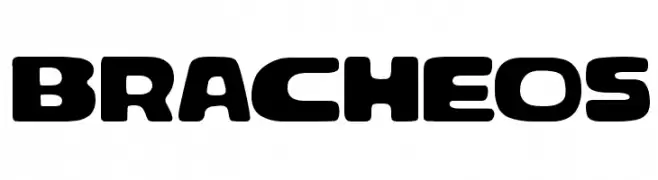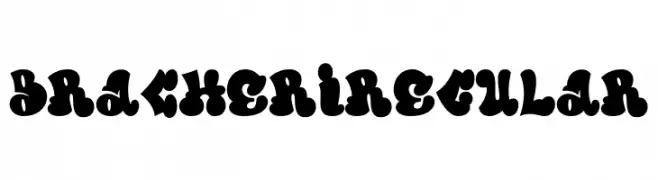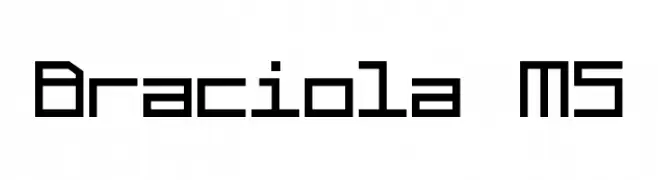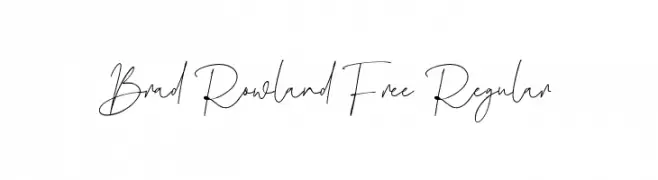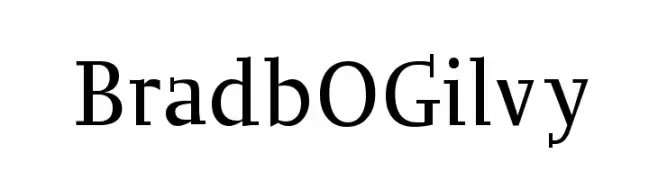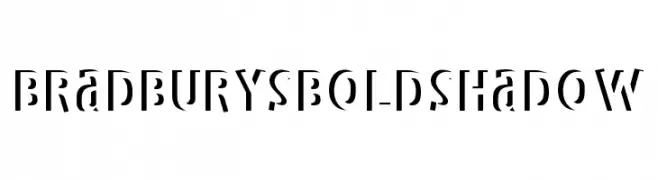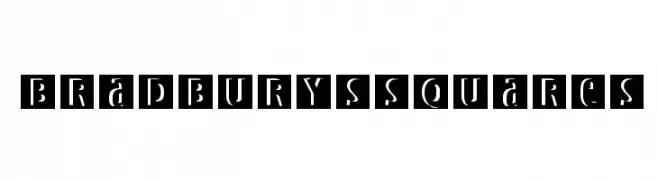
( Kyle Hathcoat )
A bold, rounded font with a modern and friendly appearance.
( Fonts by Lettersweet Studio )
A bold, playful font with thick, rounded strokes and a whimsical style.
A geometric, blocky font with uniform line thickness and a modern, technical aesthetic.
A bold, geometric font with a digital, futuristic style.
A bold, geometric stencil font with a modern, futuristic style.
A bold, geometric font with a futuristic, digital appearance.
( Fonts by Maulana Creative )
Elegant handwritten script font.
A classic serif font with elegant strokes and refined serifs.
A bold, shadowed font with sharp, angular edges and a geometric style.
A bold, geometric font with characters enclosed in squares, featuring unique cutouts.